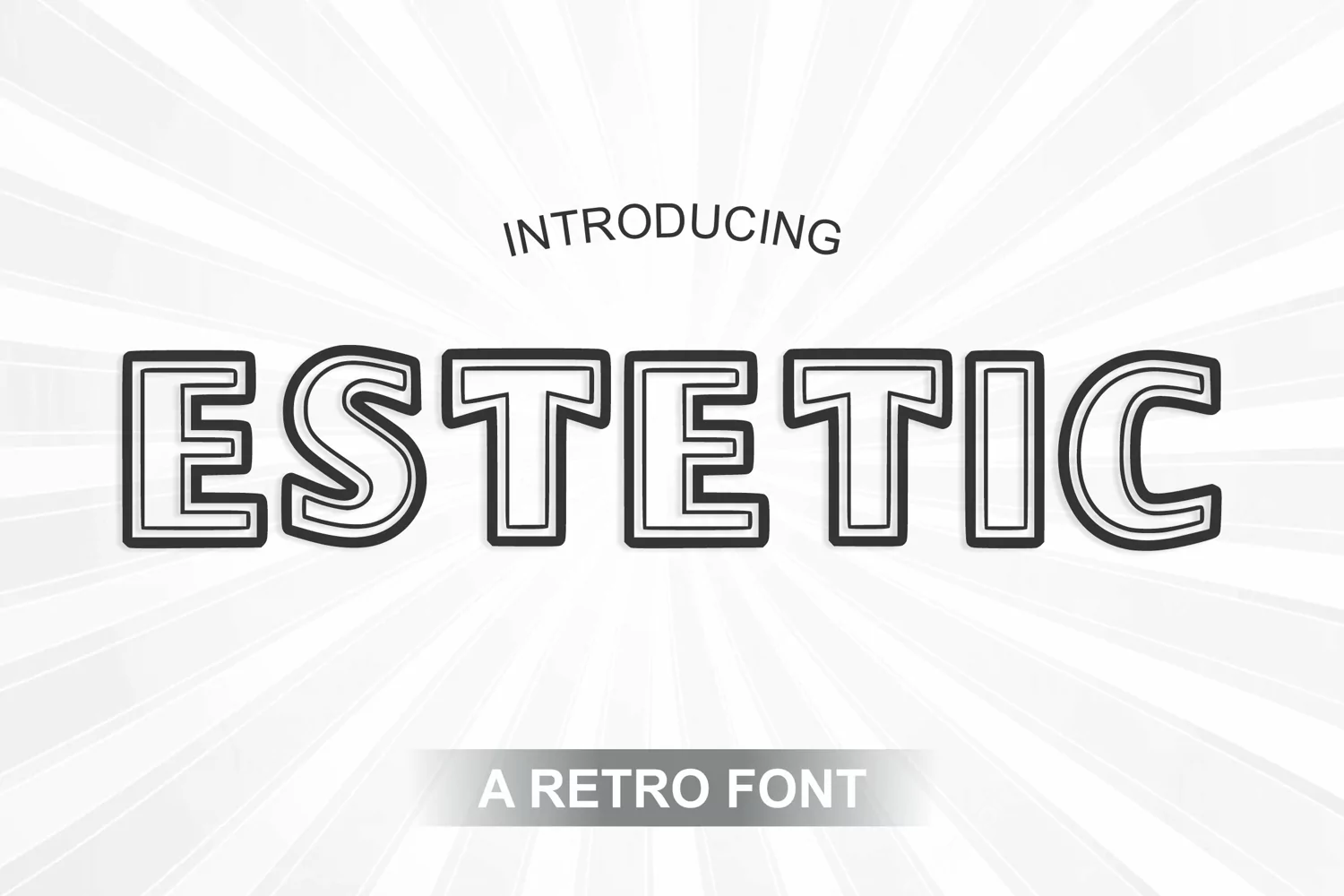
Estetic
Estetic-Regular
Estetic is a retro aesthetic display font that makes your creative projects stand out! This font is perfect for t-shirts, stickers, book covers, children’s books, social media posts, invitations, and more!
Riki Fontstudio